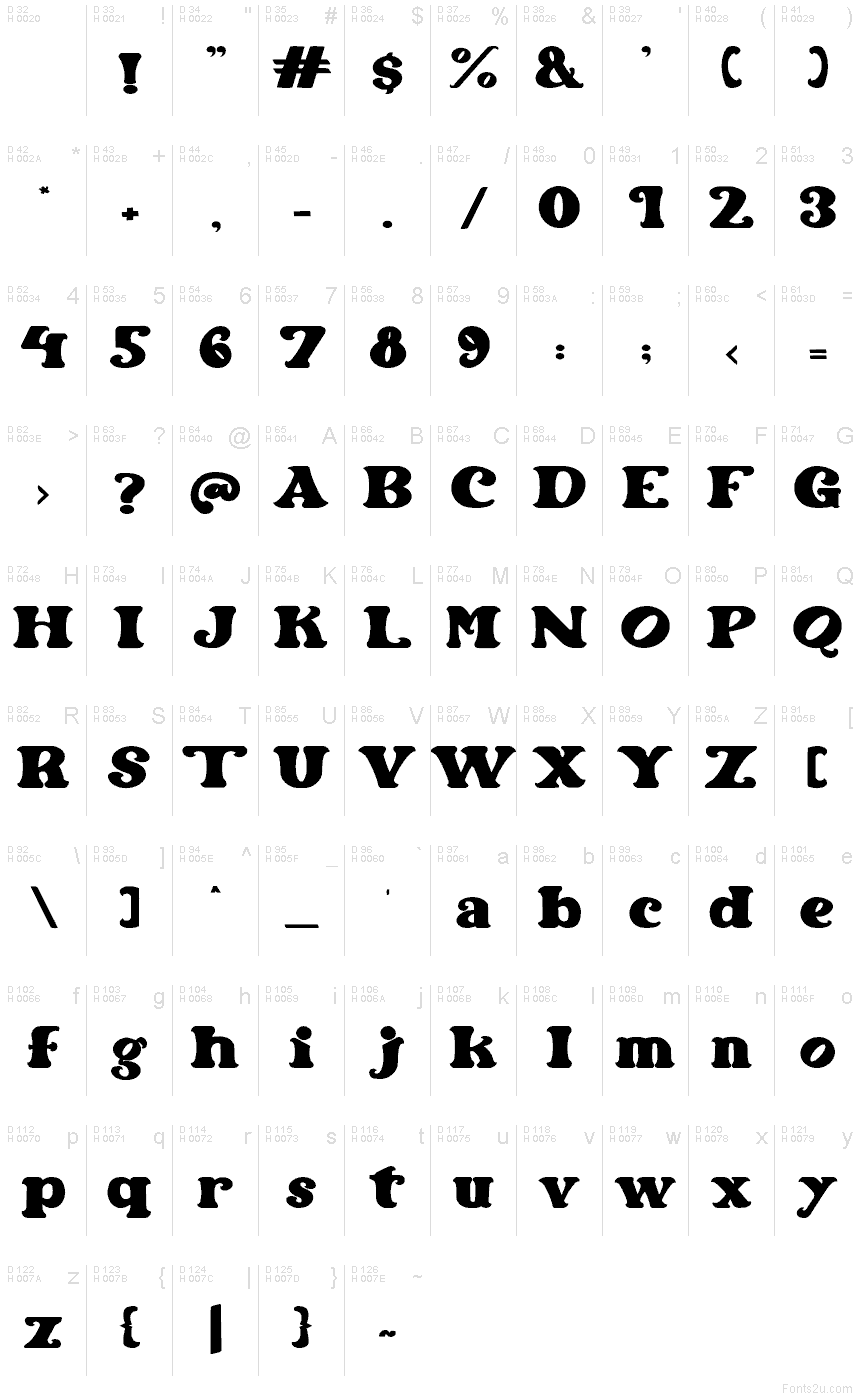
Kolhoz-Regular
Kolhoz font by Hatf Type is a retro display font with expanded width and bold charm. Vintage looks are given to any text with this simple, yet creatively stylish font; one that holds characters of elongated forms for a broader appearance coming together in total harmony. Add this free serif font to your fonts library.
Use Kolhoz in various designs from modern posters and leaflets to garments like t-shirts. Labels, packaging paper, and other branding material are also suitable for its insertion with captivating results almost guaranteed. Blogs, magazines, websites, ad boards, infographics, brochures can also be uplifted beautifully using it!